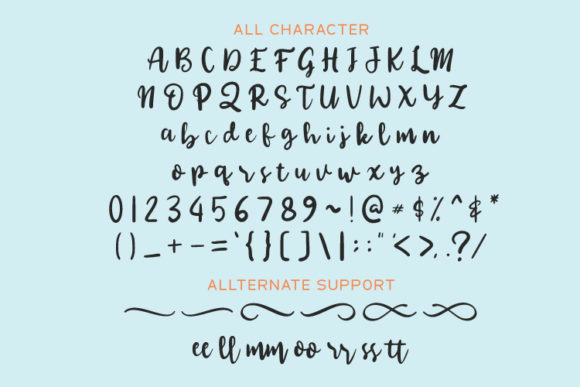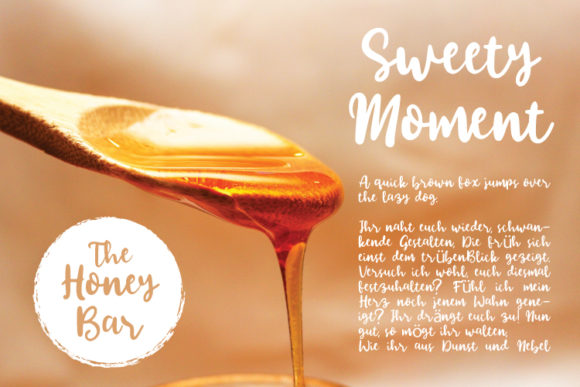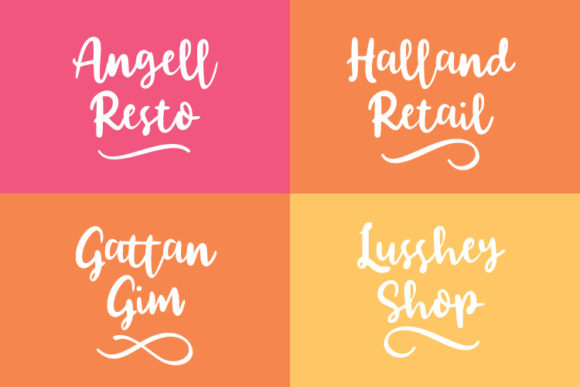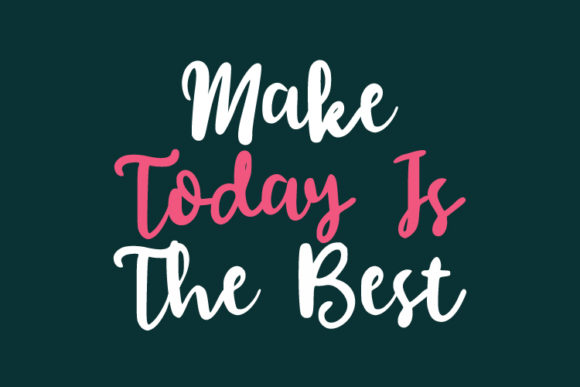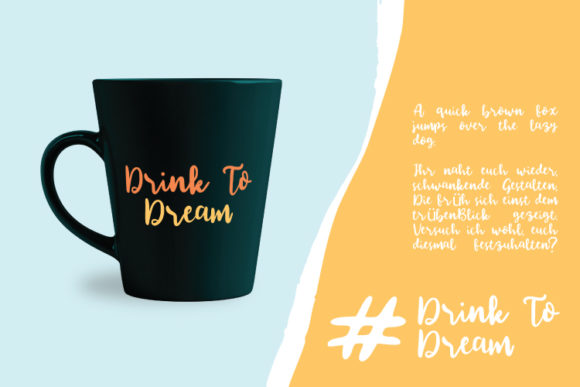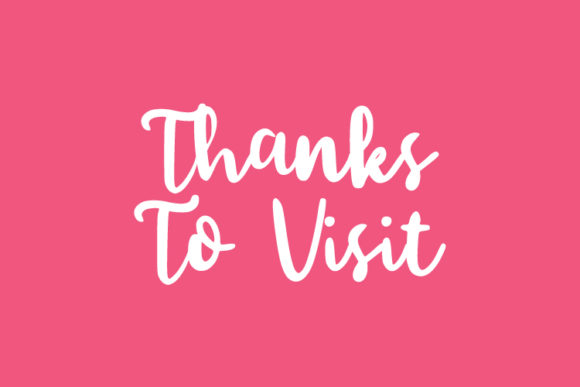
The Magic of Handwritten Typography: Introducing Hello Mello Font
There’s nothing quite like the feeling of scribbling down a brilliant idea on a sticky note or sketching out a concept in a notebook. It’s a moment of pure creativity, where the world seems to slow down and your imagination takes center stage. For designers, this moment is often the spark that sets off a chain reaction of inspiration, leading to some of their most innovative and beautiful work.
One of the most effective ways to bring this sense of handwritten charm to your designs is with the Hello Mello Font. This cursive and timeless handwritten font is the perfect choice for creating eye-catching logos, branding, and quotes that truly stand out. With its unique and beautiful touch, every letter comes alive, making your design truly unforgettable.
Hello Mello Font Key Features
- Unique Characteristics: Features a unique, modern script font with a playful yet elegant feel, making it perfect for creative projects.
Hello Mello Font Review
Overall, I think Hello Mello Font has some great qualities, but it also has some areas where it falls short. Let’s start with the good stuff ✨.
- Fun and playful vibe: Hello Mello Font has a unique, carefree feel that’s perfect for creative projects or branding.
- Customizable: The font has a range of weights and styles that make it easy to customize and adapt to different needs.
- Good for body text: Hello Mello Font is clear and readable, making it a solid choice for body text in publications or websites.
However, there are some limitations to consider ⚠️:
- Not ideal for headings: While Hello Mello Font is great for body text, it may not be the best choice for headings due to its playful, casual feel.
- Not as versatile as some other fonts: While Hello Mello Font has some great features, it may not be as versatile as some other fonts on the market.
- Some characters may not be as refined: I noticed that some characters in the font, such as the ampersand, may not be as refined or polished as others.
Overall, I think Hello Mello Font is a solid choice for certain projects, but it may not be the best fit for every design need. With a little creativity and customization, however, it can be a fun and effective font to work with.
Tips for Getting the Most Out of Hello Mello Font
For optimal results, use Hello Mello Font with bold or italic styles to create contrast and visual interest. Experiment with different font sizes to create a balanced composition.
Hello Mello Font is ideal for use in creative projects, such as invitations, posters, and social media graphics. It’s also great for branding and marketing materials, like logos and business cards.
Alternatives to Hello Mello Font for Designers
Great Vibes Font is a beautiful, handwritten font perfect for creating a warm and inviting atmosphere. It’s ideal for use in headings, quotes, and titles where you want to add a touch of personality to your design. Great Vibes Font is more elegant and sophisticated compared to Hello Mello Font, which is more playful and casual.
Pacifico Font is a modern, elegant font that’s perfect for use in logos, headings, and body text. It’s a great choice for designers who want to create a clean and sophisticated look. Compared to Hello Mello Font, Pacifico Font is more refined and polished, making it suitable for a wider range of design projects.
Dancing Script Font is a whimsical, handwritten font that’s perfect for creating a fun and playful atmosphere. It’s ideal for use in headings, titles, and body text where you want to add a touch of personality and creativity to your design. Dancing Script Font is more expressive and dynamic compared to Hello Mello Font, which is more straightforward and casual.
The recommended font size for the Hello Mello Font is between 12 and 24 points. This range provides optimal legibility and readability. However, feel free to experiment with different font sizes to achieve the desired visual effect.
Q: Is the Hello Mello Font compatible with right-to-left languages?
Yes, the Hello Mello Font is designed to be compatible with right-to-left languages such as Arabic, Hebrew, and Persian. The font includes proper handling of ligatures, diacritics, and other language-specific features to ensure proper rendering and layout.